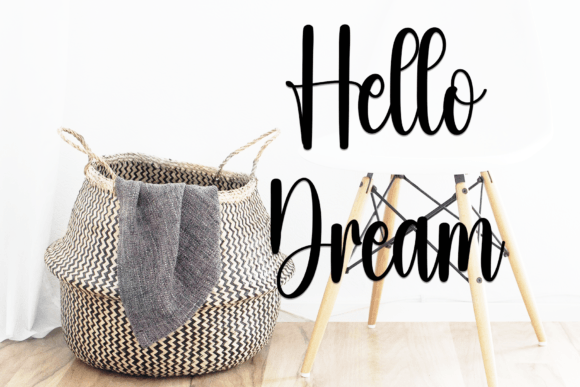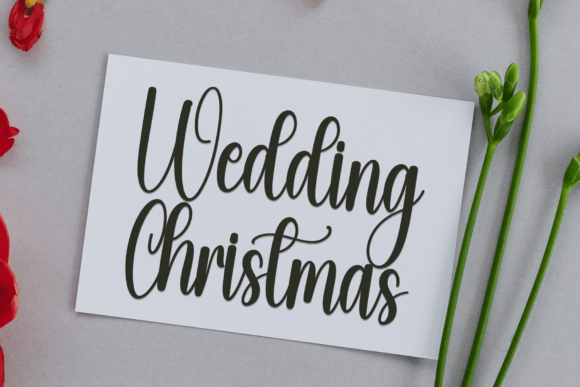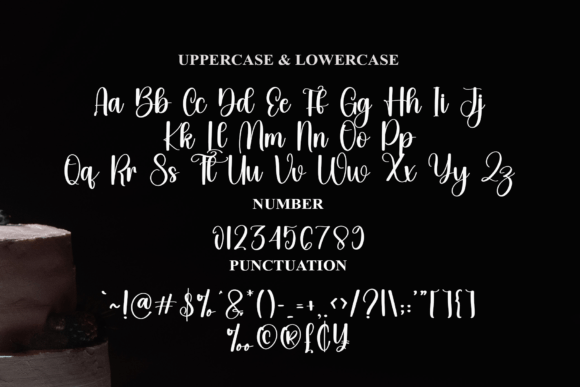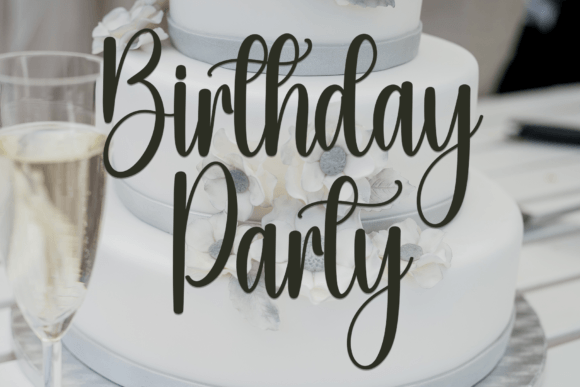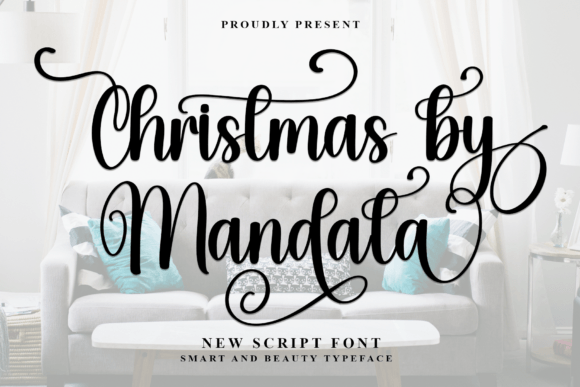
Introducing Christmas by Mandala Font: Elevate Your Designs with Timeless Elegance
Are you searching for a font that embodies the spirit of Christmas with a touch of modern sophistication? Look no further than Christmas by Mandala Font. This stylish handwritten font is inspired by timeless classic calligraphy, offering a contemporary atmosphere and impeccable form that will elevate the beauty of your projects.
What Makes Christmas by Mandala Font Special?
Christmas by Mandala Font is not just any ordinary font. Its balanced and varied design makes it perfect for a wide range of applications, from holiday-themed designs to everyday creative projects. The font’s unique blend of classic calligraphy and modern flair ensures that your designs stand out with elegance and sophistication.
Key Features of Christmas by Mandala Font
- PUA Encoded: This font is PUA (Private Use Area) encoded, which means you can easily access all the amazing glyphs and ligatures. This feature allows for greater flexibility and creativity in your designs, making it easier to add that special touch to your projects.
- Handwritten with a Contemporary Twist: The font boasts a stylish handwritten appearance with a contemporary atmosphere. This makes it versatile enough to be used in various design contexts, from festive holiday cards to modern branding projects.
- Inspired by Timeless Classic Calligraphy: The inspiration from classic calligraphy gives Christmas by Mandala Font an air of tradition and timelessness. This is perfect for designers looking to add a touch of classic elegance to their work.
- Balanced and Varied: The balanced and varied design of the font ensures that it can be used for both short phrases and longer texts. Whether you’re creating a holiday greeting card or a comprehensive brand guide, this font maintains its beauty and readability.
Use Cases for Christmas by Mandala Font
Christmas by Mandala Font is incredibly versatile, making it suitable for a variety of design projects. Here are some use cases where this font truly shines:
- Holiday Cards and Invitations: Add a touch of elegance and festivity to your Christmas cards, invitations, and holiday-themed stationery.
- Branding and Packaging: For businesses looking to create a warm and inviting brand image, especially those in the lifestyle, fashion, and beauty sectors, this font can add a sophisticated touch to logos, packaging, and marketing materials.
- Social Media Graphics: Stand out on social media with beautifully designed graphics, quotes, and posts that utilize the unique charm of Christmas by Mandala Font.
- Web Design: Use this font for website headers, blog posts, or any textual content that could benefit from a stylish, yet readable typeface.
- Utilize Glyphs and Ligatures: Take full advantage of the PUA encoding by incorporating glyphs and ligatures into your designs. These elements can add a unique flair to your text.
Christmas by Mandala Font offers a unique blend of classic elegance and modern sophistication, making it an excellent choice for designers and crafters looking to add a touch of timeless beauty to their projects. With its PUA encoding, contemporary yet classic design, and versatility, this font is sure to become a staple in your design toolkit. Whether you’re creating holiday-themed designs or simply looking for a stylish font for your next project, Christmas by Mandala Font is an exceptional choice.